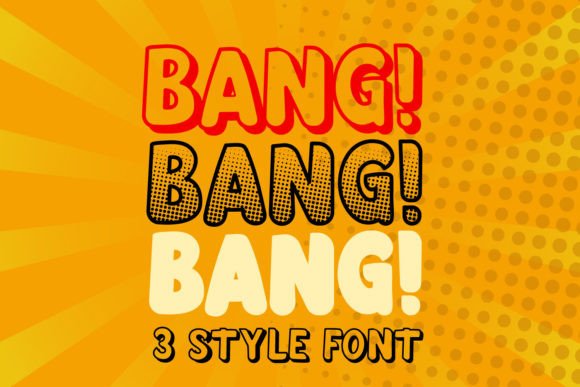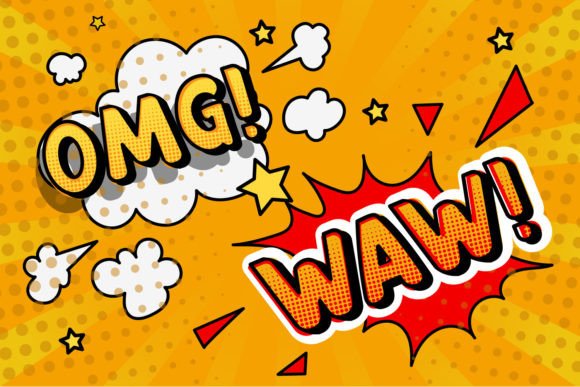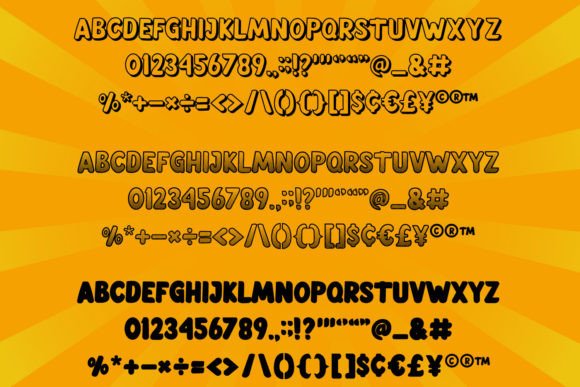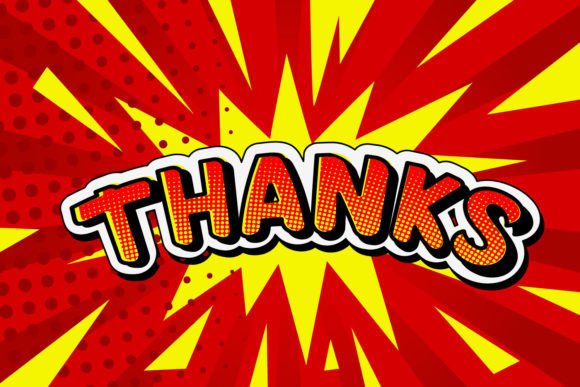
The Power of Booom Font: Unleashing the WOW! Factor in Your Designs
Remember the moment you first opened your favorite comic book or cartoon? The vibrant colors, the bold lines, and the fonts that jumped off the page, making your heart skip a beat? That’s what we’re going for with the Booom Font – a game-changing typography that adds a wow factor to your designs.
Booom Font is a bold, playful, and strong font that’s perfect for kids and children’s items, yet cool and unique for products with bags of character. With its complete set of uppercase, lowercase, and special characters, this font is a designer’s dream come true. Whether you’re working on a comic book, a cartoon, or a product that needs a bold statement, the Booom Font is the perfect tool to unleash your creativity and make your designs stand out.
Key Features of Booom Font
- Font Family: Booom Font is a sans-serif font family that includes multiple styles and weights.
- Size: The font family includes a range of font sizes, from 8-point to 72-point, making it suitable for various design needs.
- Resolution: The font is optimized for high-resolution displays, ensuring crisp and clear rendering at resolutions up to 300 DPI.
- Unique Characteristics: Booom Font features a unique blend of modern and futuristic elements, with clean lines, geometric shapes, and a bold aesthetic.
- Font Styles: The font family includes multiple styles, such as bold, italic, and bold italic, allowing designers to create a wide range of visual effects.
Designer Review: Booom Font
Overall, I’d say Booom Font is a fun and playful sans-serif font that can add some much-needed personality to your designs. ✨
- Unique character set – Booom Font has some really unique and quirky character sets that can help you stand out from the crowd.
- Good legibility – Despite its playful feel, Booom Font is still relatively easy to read, even at smaller font sizes.
- Great for headings – Booom Font’s bold and eye-catching style makes it perfect for headings and titles.
- Not ideal for body text – Booom Font’s playful feel can make it difficult to read for extended periods of time, especially at smaller font sizes.
- Limited language support – Booom Font may not support as many languages as some other fonts, which could be a limitation for multilingual designs.
- May not be suitable for formal designs – Booom Font’s playful style may not be suitable for formal or professional designs, such as business reports or academic papers.
Overall, I think Booom Font is a great addition to any designer’s toolkit, but it’s not a one-size-fits-all solution. Use it sparingly and in the right context, and it can really help add some personality to your designs. ⚠️
Getting the Most Out of Booom Font
Here are some tips for getting the most out of Booom Font:
- Use Booom Font for headings and titles to add a bold and eye-catching touch
- Combine Booom Font with other fonts to create a unique and visually appealing design
- Experiment with different font sizes and colors to achieve the desired effect
Booom Font is ideal for:
- Social media posts and ads
Comparison: While Booom Font has a bold, playful feel, Great Vibes offers a more polished and sophisticated look. Great Vibes is better suited for designs that require a more refined aesthetic.
Dancing Script is a elegant, handwritten font that’s perfect for creating a sense of drama and flair. It’s ideal for headings, titles, and quotes in designs that require a touch of sophistication and glamour. Dancing Script is a great alternative to Booom Font when you want a more luxurious and high-end look.
What is the recommended font size for the Booom Font?
The recommended font size for the Booom Font varies depending on the application and intended use. As a general guideline, we recommend using font sizes between 12pt and 24pt for body text, and 36pt to 48pt for headings. However, feel free to experiment with different font sizes to find the perfect fit for your design.